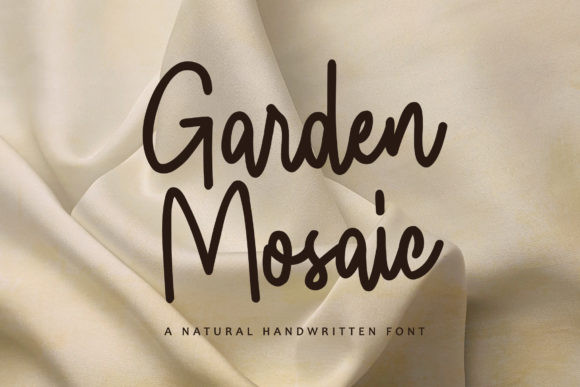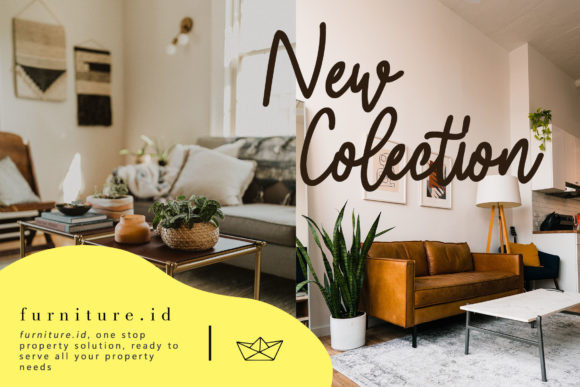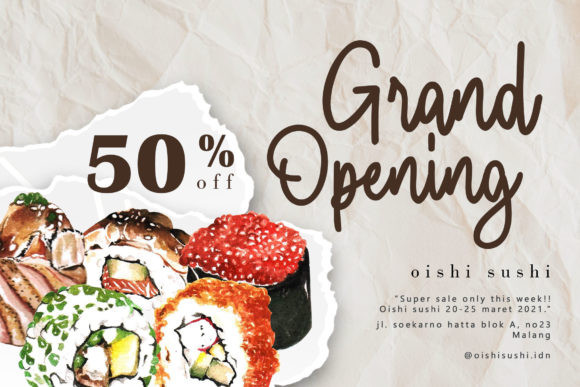
Garden Mosaic Font
Garden Mosaic is a natural and dainty script font. This font is neatly crafted and highly detailed. Whatever the topic, this font will be a wonderful asset to your font library, as it has the potential to enhance any creation.